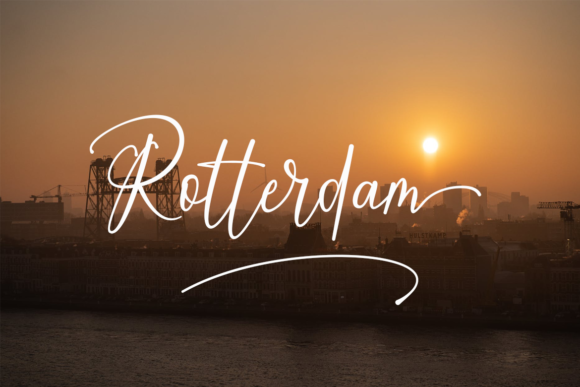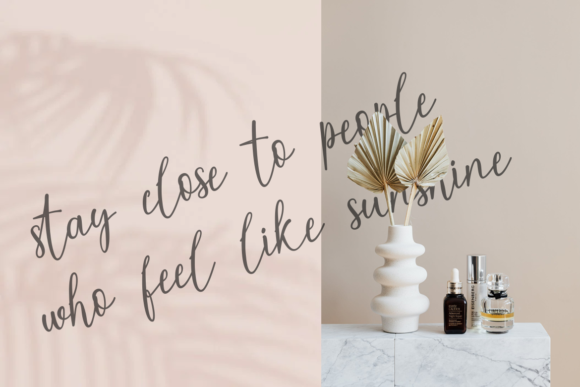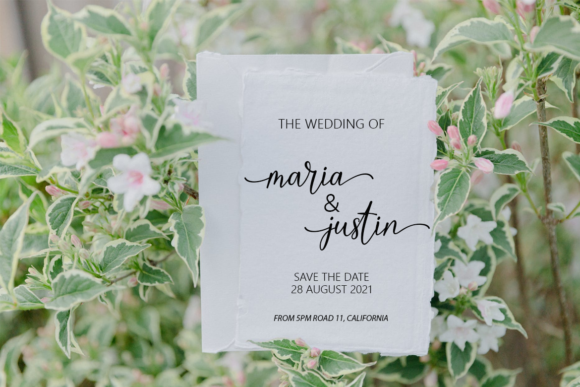
Introduction to Posteraphy Font
Have you ever stared at a blank canvas, struggling to find the perfect font to bring your creative project to life? I know I have. There’s something magical about discovering the perfect typography to elevate your design and make it truly special. For me, that moment came when I stumbled upon the Posteraphy Font – a delicate script font that exudes elegance and sophistication.
With its lovely and refreshing look, the Posteraphy Font is a valuable resource for designers seeking to add a touch of class to their designs. Its PUA encoding makes it easy to access all glyphs and swashes, giving you complete control over your creative project. Whether you’re working on a high-quality design or simply need a beautiful font for a free download, Posteraphy Font is an excellent choice.
- Transparent background, making it ideal for use on images with complex backgrounds.
- Designed with a unique aesthetic, Posteraphy Font is perfect for adding a touch of elegance to any design project.
- Perfect for use in graphic design, digital art, and other creative endeavors where a high-quality font is essential.
- Supports a wide range of languages, making it a versatile design resource for international projects.
Honest Review: Posteraphy Font
As a designer, I’m always on the lookout for high-quality design resources to elevate my creative projects. Recently, I came across the Posteraphy Font, which has been making waves in the design community. In this review, I’ll share my honest thoughts on this font.
What works well: ✨ The Posteraphy Font is a versatile font that can be used for a variety of design projects, from posters and flyers to websites and social media graphics. Its unique design elements, such as the transparent background, make it perfect for creating eye-catching and modern designs.
Some of the key features of the Posteraphy Font include:
- High-quality design elements that are perfect for creative projects
- Transparent background for added depth and visual interest
- Easy to use and customize
⚠️ However, I do have some limitations to mention: the font may not be suitable for very formal or traditional designs, and the transparency feature can be a bit tricky to work with if you’re not familiar with layering and blending modes.
Overall, I’m impressed with the Posteraphy Font and would definitely recommend it to designers looking for a high-quality design resource. With its versatility and unique design elements, it’s a great addition to any design toolkit.
Common Use Cases for Posteraphy Font
Posteraphy Font is ideal for use in various creative projects, including social media graphics, posters, flyers, and business cards. Its high-quality design and transparent background make it a popular choice for designers.
Yes, the Posteraphy Font is designed to be used with a transparent background, making it ideal for creating custom designs and graphics. You can use it in conjunction with other design elements, such as images and shapes, to create a unique and eye-catching visual effect.